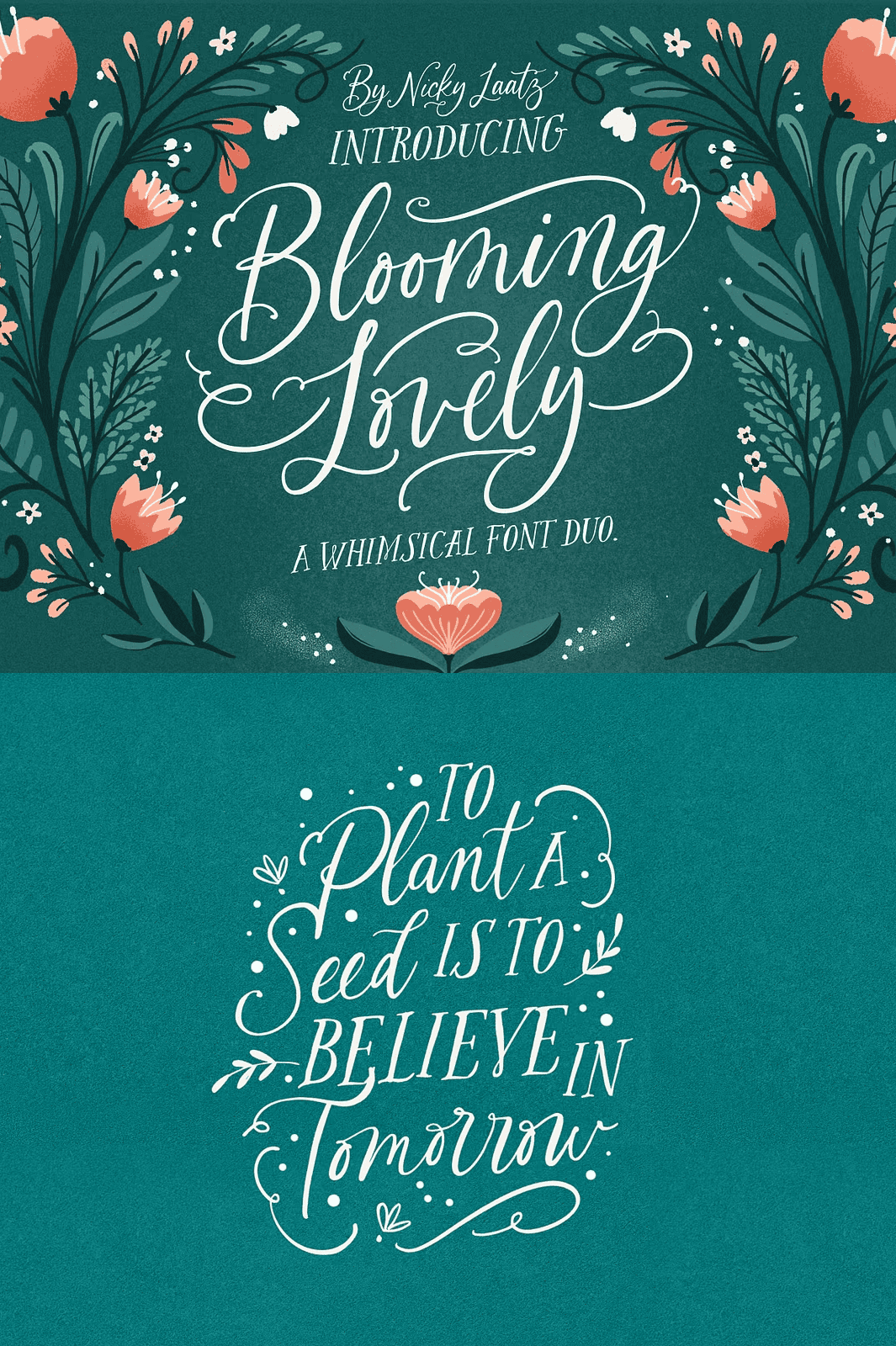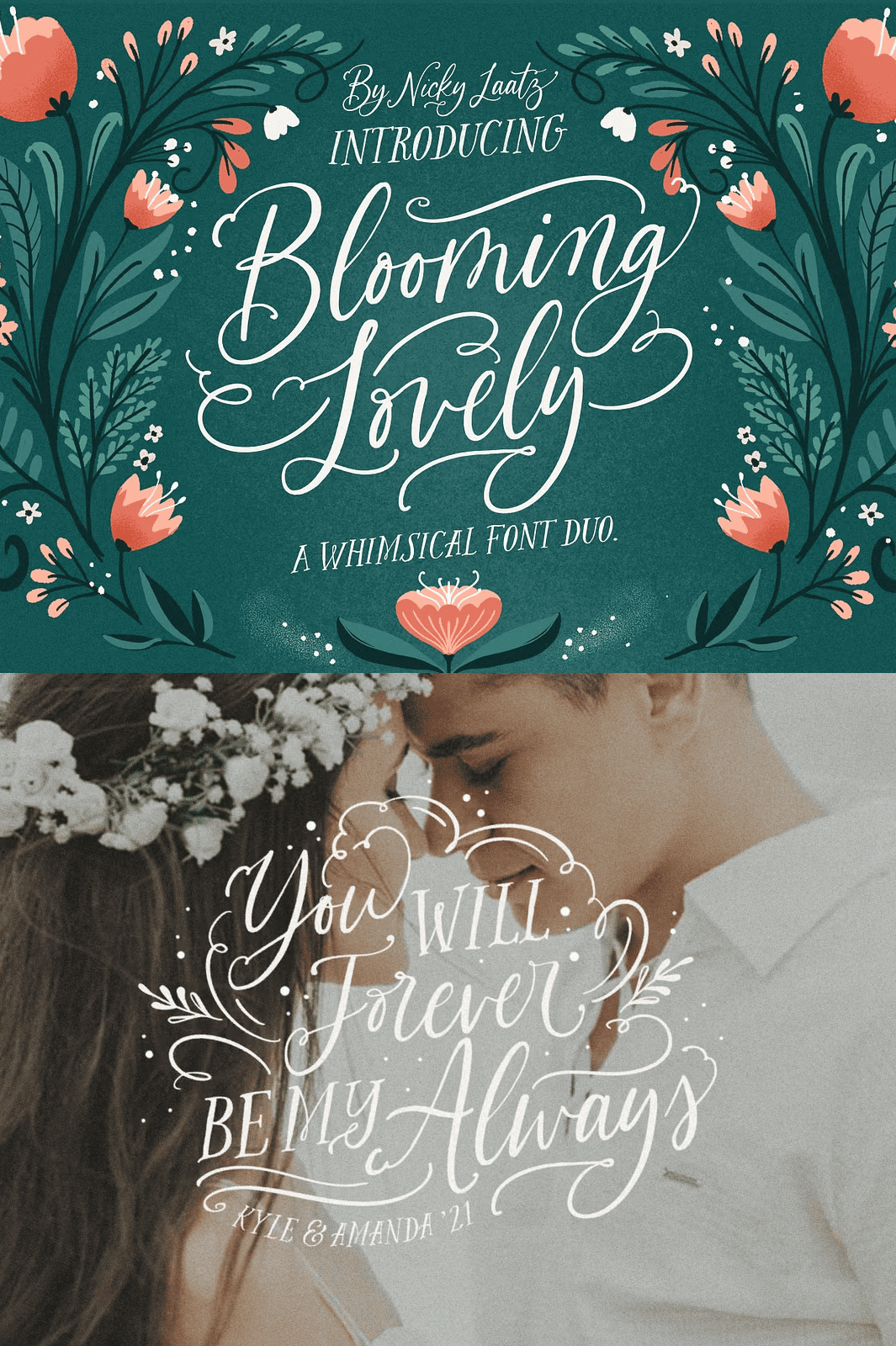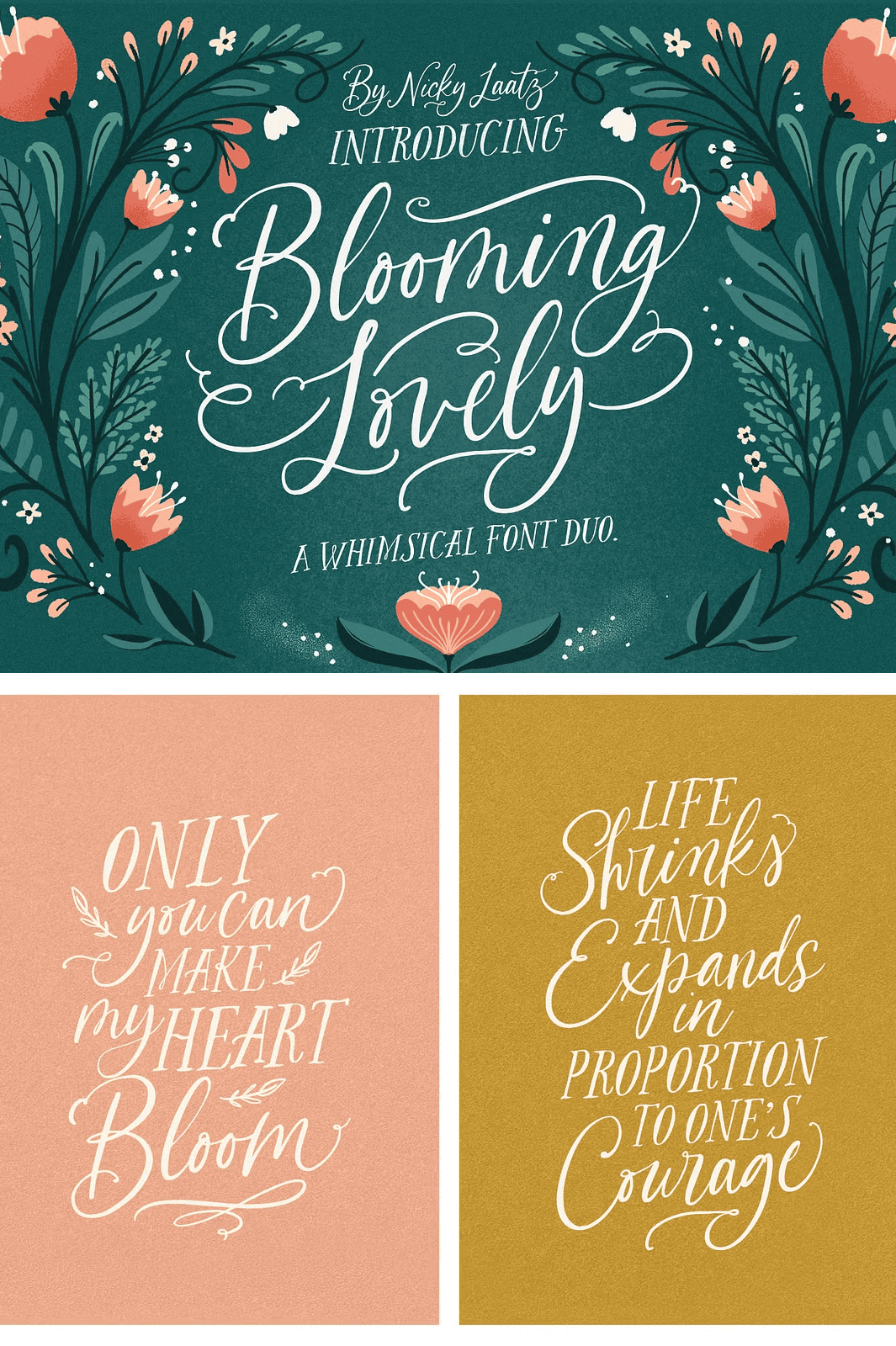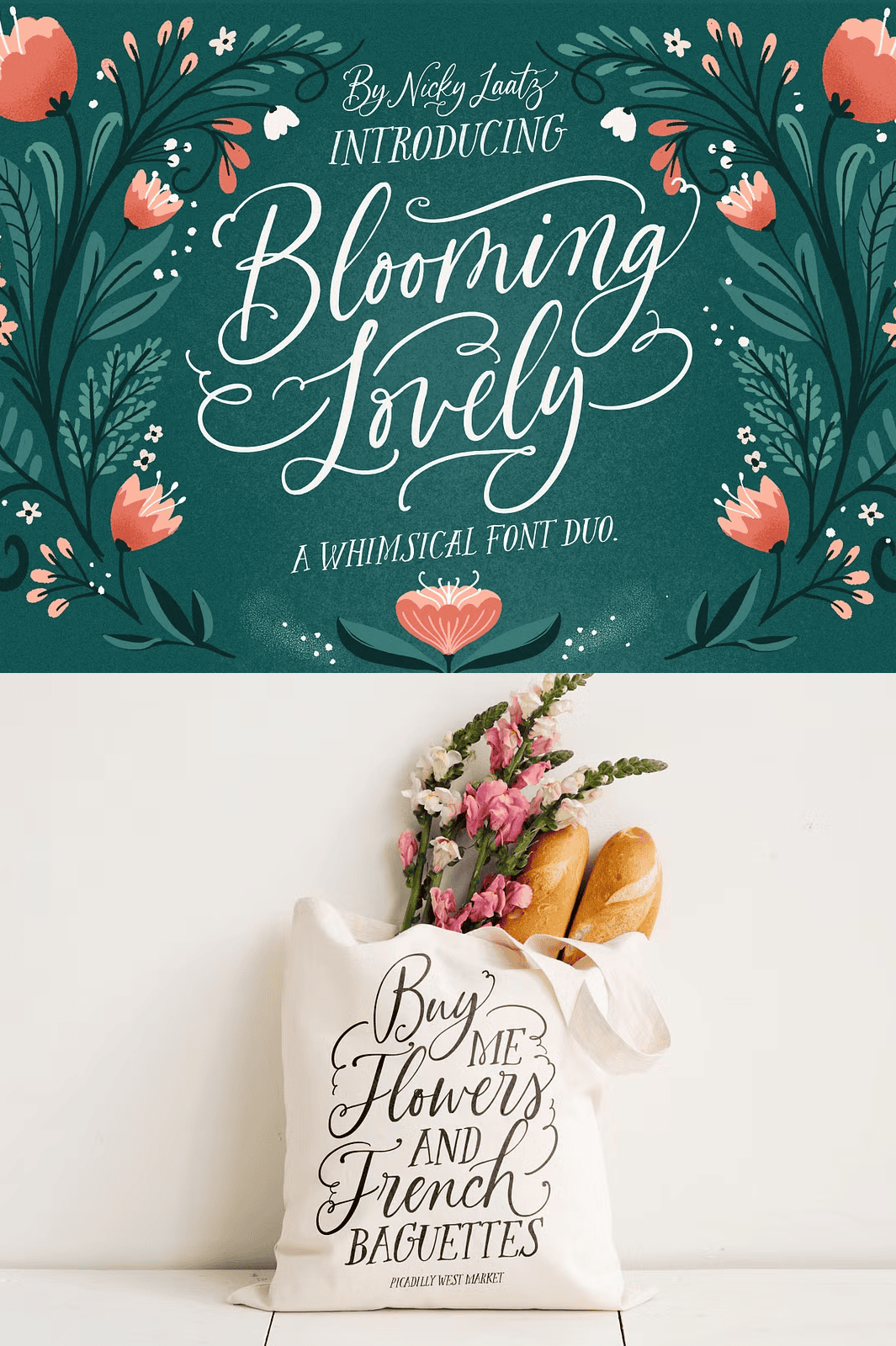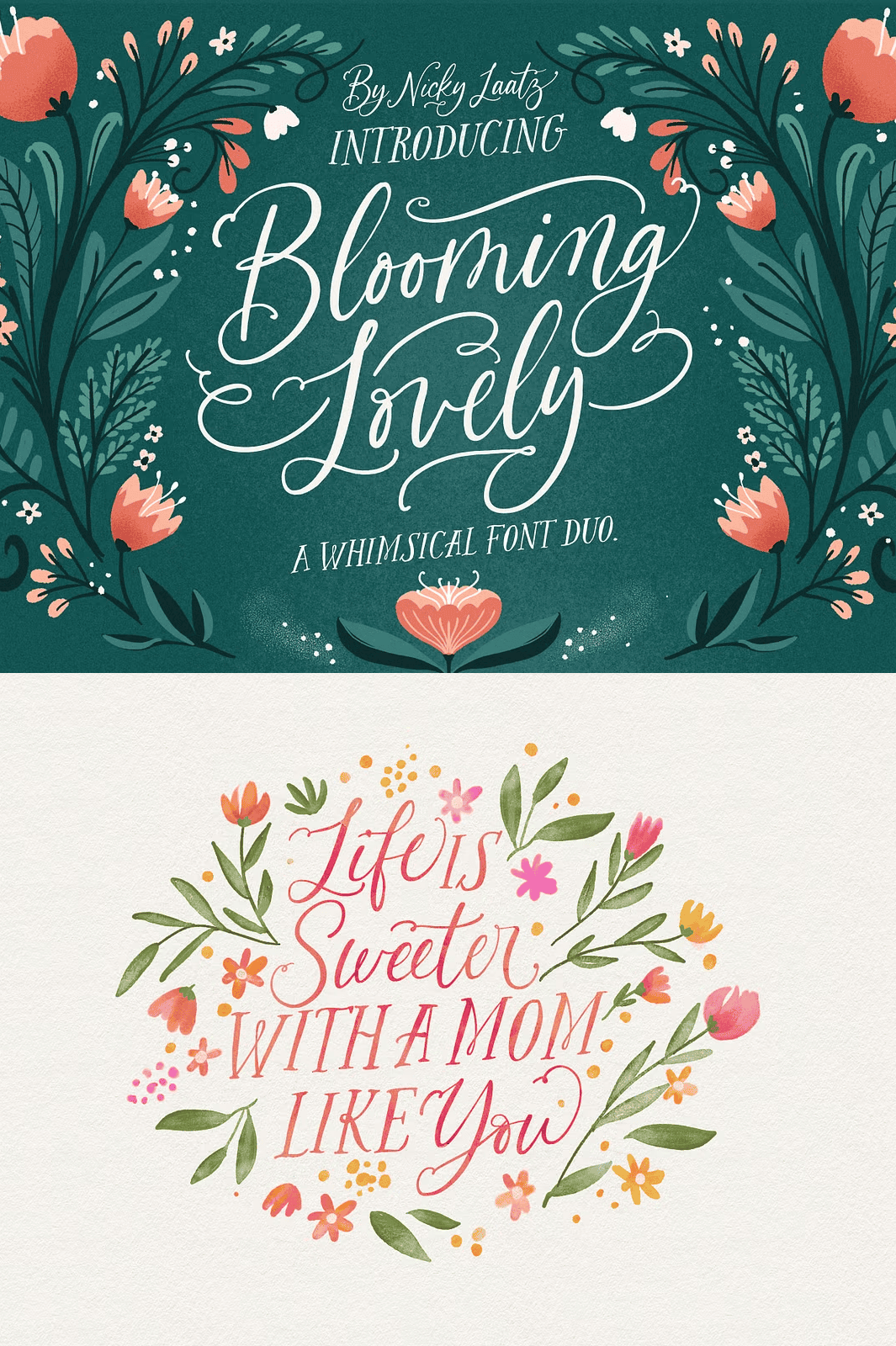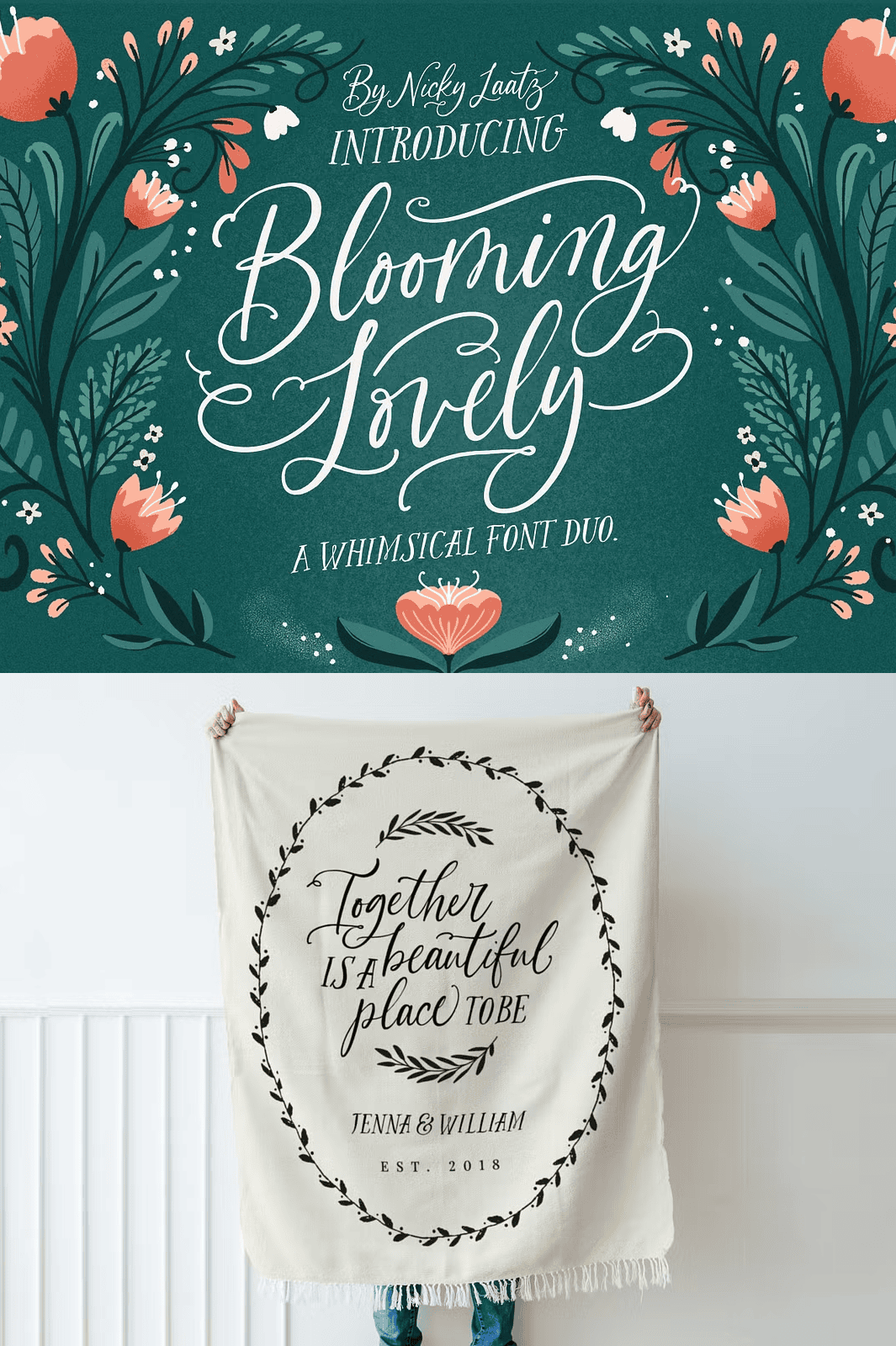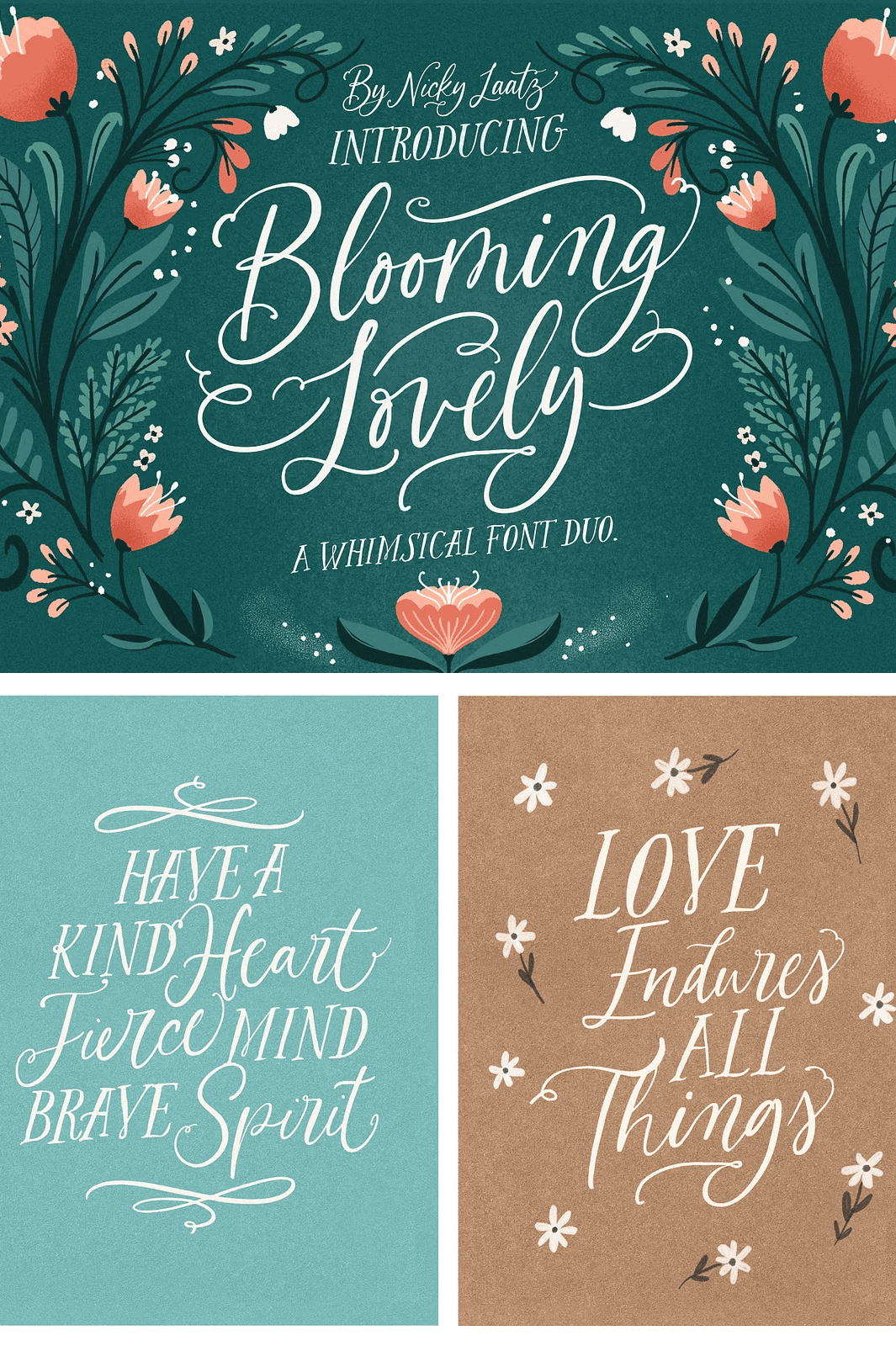
The Blooming Lovely Font Duo
Unleash the Magic of Handcrafted Typography with a Dual-Font Powerhouse
Step into a world where every letter feels alive, where the brushstroke breathes with personality and the design sings with joyful charm. Meet **The Blooming Lovely Font Duo** — a thoughtfully crafted pair of typefaces designed to bring warmth, personality, and expressive flair to your creative projects. This isn’t just a font pack; it’s a complete design language built for artists, bloggers, wedding planners, and brands who believe that typography should tell a story.
With a **whimsical handwritten script** that dances across the page and a complementary **bold all caps serif** that stands strong with confidence, this duo delivers unmatched versatility and visual harmony. Whether you’re designing a romantic wedding invite, a boutique label, a social media post, or a children’s storybook, The Blooming Lovely Font Duo empowers you to create with authentic expression.
Dominate with 167 Advanced OpenType Ligatures and Stylistic Alternates
Take full creative control with **167 meticulously designed OpenType ligatures and stylistic alternates**. These aren’t random flourishes — they’re intentional design features that give your work professional polish and depth. Use them to:
– Create flowing, natural transitions between letters like “lo,” “ve,” and “ly”
– Swap standard characters for ornate, decorative versions with a single keystroke
– Add variation and rhythm to repeated phrases for visual interest
Unlock Extra Charm with 68 Custom Ornaments and Flourishes
Elevate your layouts with a **bonus ornaments font** packed with 68 unique decorative elements — delicate frills, swirling foliage, floral sprigs, and elegant embellishments. These graphics are not just filler; they’re design tools meant to fill open spaces, frame text, or create borders that tell a visual story.
Use them to:
– Frame your name on a wedding invitation with a vintage flourish
– Add a playful border to a social media graphic
– Decorate the corner of a greeting card or business card
– Fill empty areas in a layout without clutter
All ornamental glyphs are fully scalable and compatible with web and print applications.
Authentic Handwritten Design — Real Brush, Real Soul
Every character was drawn by hand using real calligraphy tools, capturing the warmth and imperfection that machine-generated fonts often lack. The **slightly wobbly edges, natural variation, and textured strokes** preserve the soul of the original handwriting — making each letter feel alive and personal.
Create with Heart. Design with Passion. Let Every Letter Bloom.
The Blooming Lovely Font Duo is more than a collection of typefaces — it’s an invitation to design with soul. Let your projects stand out with handcrafted charm, dynamic flow, and timeless appeal. Don’t just type your message — let it bloom.